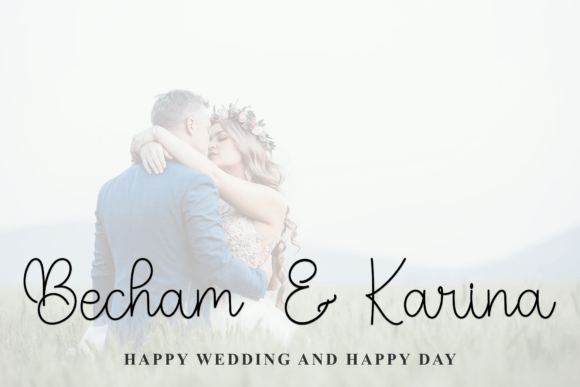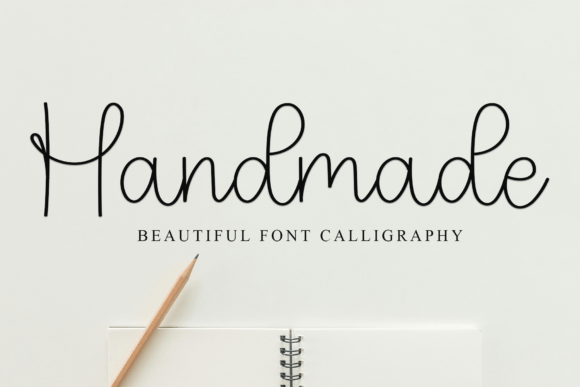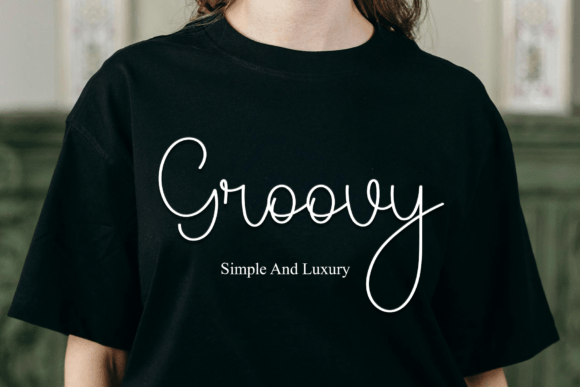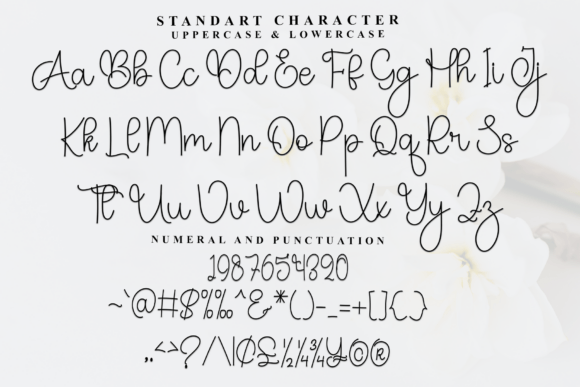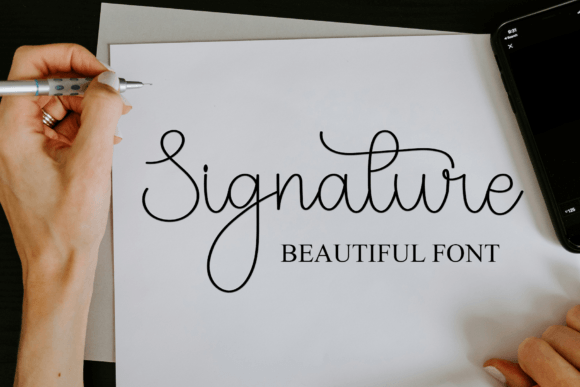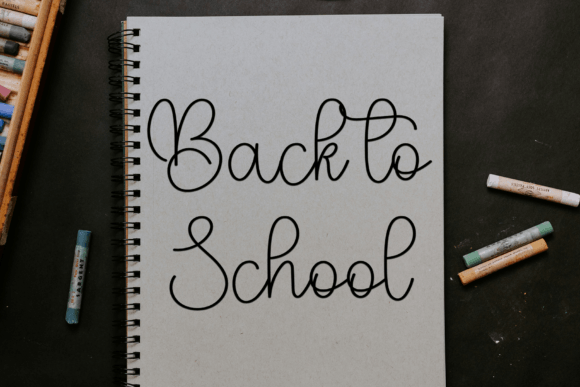
Unleash Your Creativity with Brothers Font
Remember that moment when a spark of inspiration hits you, and you can’t wait to bring your idea to life? For designers, it’s a feeling that’s hard to replicate, but with the right tools, it’s within reach. One of the key elements that can elevate your project from good to great is the font you choose.
Enter Brothers Font, a flowing handwritten font that exudes elegance and sophistication. Perfect for your favorite projects, Brothers Font is designed to make a lasting impression. Its unique, timeless style is sure to captivate your audience and leave a lasting impact. Whether you’re a seasoned designer or just starting out, Brothers Font is an invaluable asset to have in your toolkit.
With Brothers Font, the possibilities are endless. Use it to create stunning graphics, logos, or even entire branding campaigns. Its versatility and distinct style make it an essential addition to any designer’s arsenal.
Brothers Font Key Features
- Unique Characteristics: The Brothers Font features a unique blend of modern and traditional elements, with intricate details and subtle textures that give it a distinctive look.
Designer Review: Brothers Font
I’ve had the chance to work with Brothers Font, and here’s my honest take on it.
- Unique aesthetic: Brothers Font has a distinctive, quirky feel that can add character to your designs.
- Playful feel: It’s perfect for projects that need a lighthearted, approachable vibe.
- Good for display text: The font looks great in larger sizes and is suitable for headings and titles.
- Limited legibility: At smaller sizes, the font can become difficult to read due to its unique letterforms.
- Not suitable for body text: The font’s playfulness makes it less ideal for large blocks of text.
- May not be accessible: Some users may find the font difficult to read, which can impact accessibility.
Overall, Brothers Font is a fun, quirky addition to any design project. While it excels in display text and adds a unique touch, it’s essential to consider its limitations and potential impact on readability and accessibility. With careful use, it can be a great choice for the right project.
The Brothers Font is a versatile font suitable for various applications, including:
- Typography for social media posts and graphics
- Logo design and branding
- Print materials, such as business cards and brochures
For optimal results, use the Brothers Font in conjunction with other bold and playful fonts to create visually appealing designs.